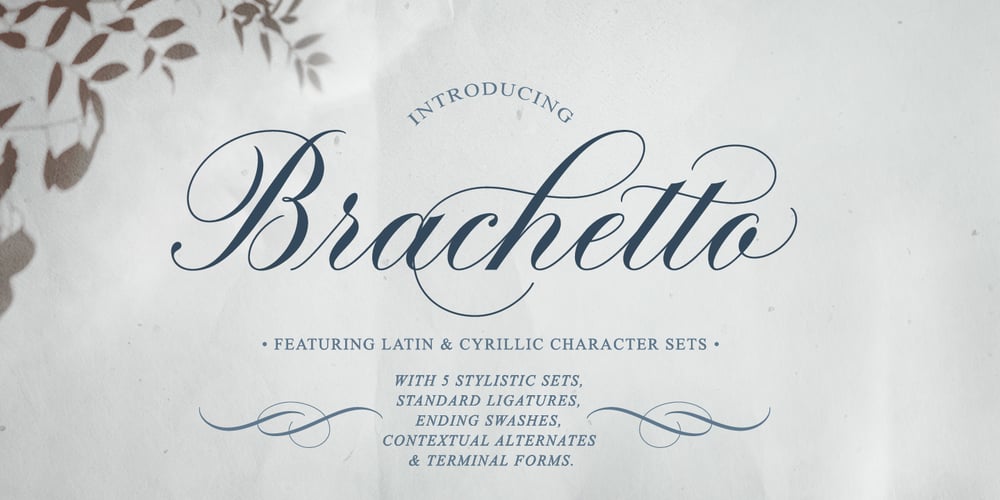
Brachetto Font Family was designed by Roland Hüse and published by Roland Hüse Design. Brachetto contains 1 styles and family package options. Brachetto is a calligraphy script, influenced by traditional script style with an added touch of modernity and flourished elegance. This font is delicately crafted and well thought out with every little detail in mind, to ensure its ease and versatility when used. Being elegant yet bold in its visual presence. Brachetto is a collaboration between lettering artist and calligrapher, Leah Chong and typeface designer, Roland Hüse. Introduction video of this font here https://youtu.be/h9AvlgUDxUc